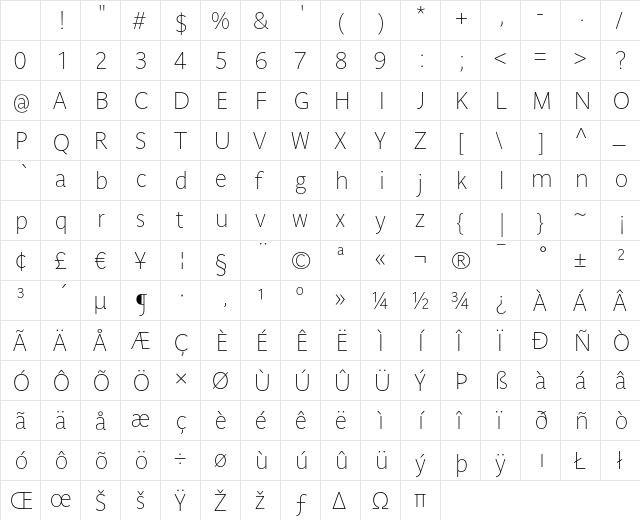
Complete ParisineClair Regular glyph index. Displaying only characters natively supported by ParisineClair Regular font.
ParisineClair is a composed and adaptable typeface that performs quietly and consistently across a wide range of design contexts.